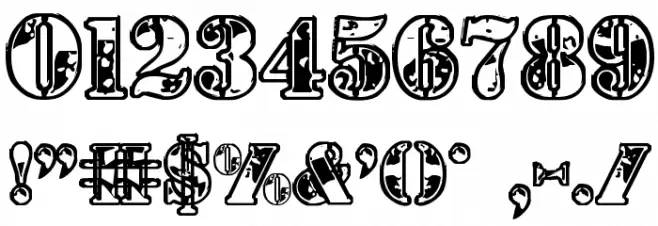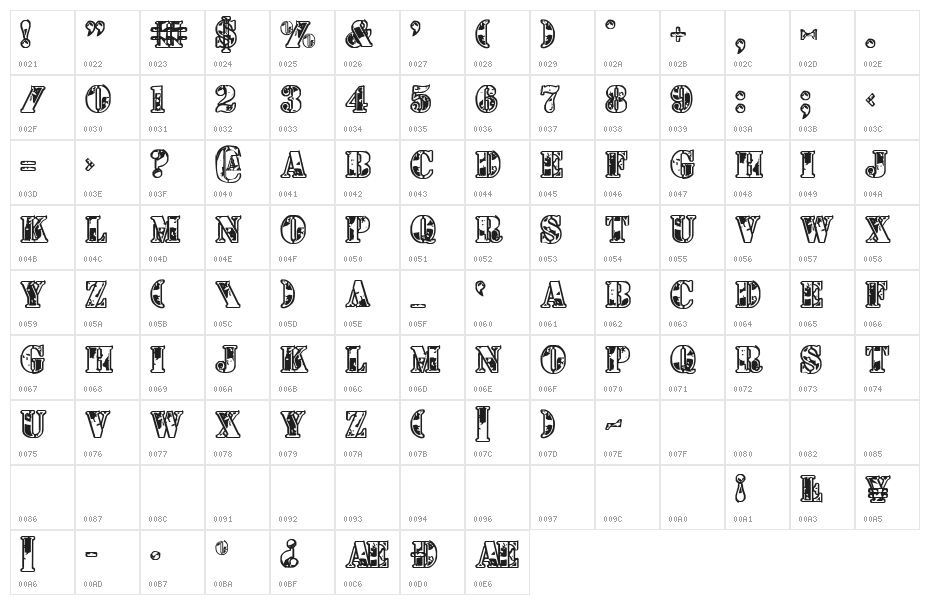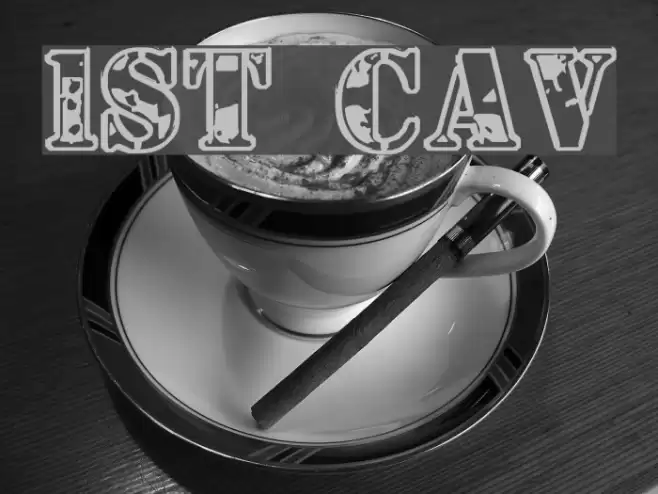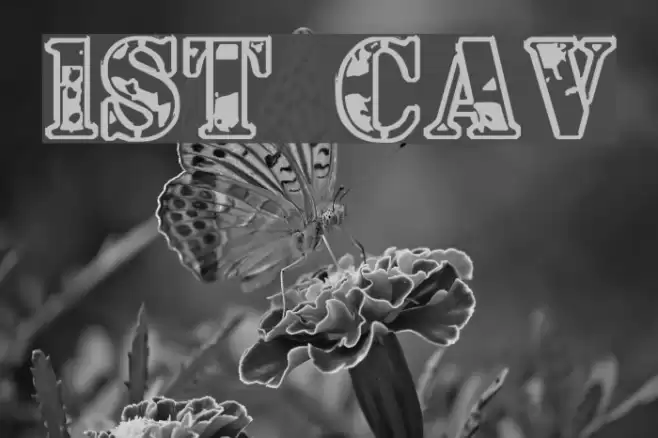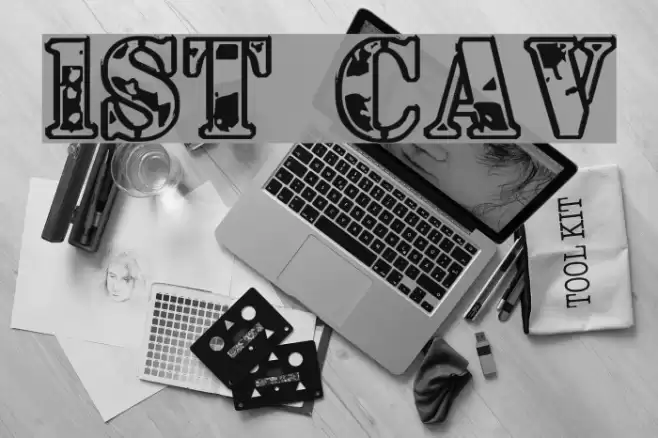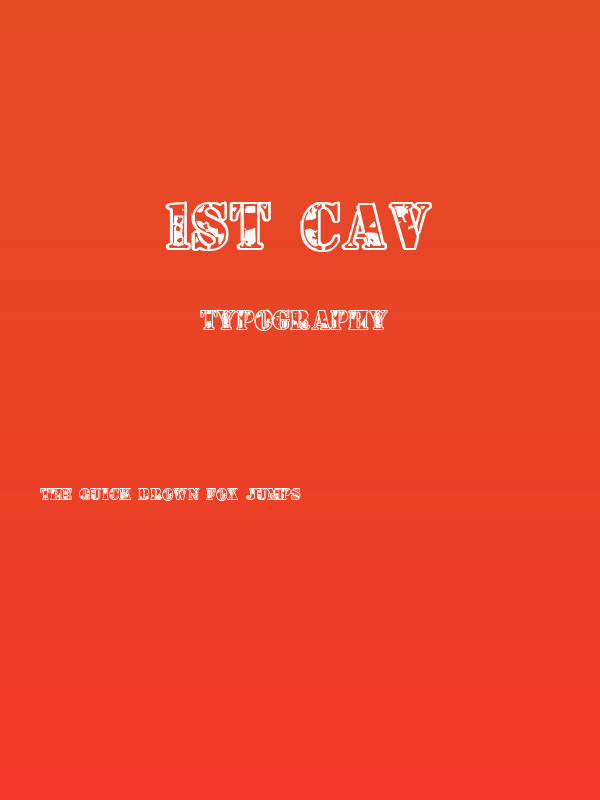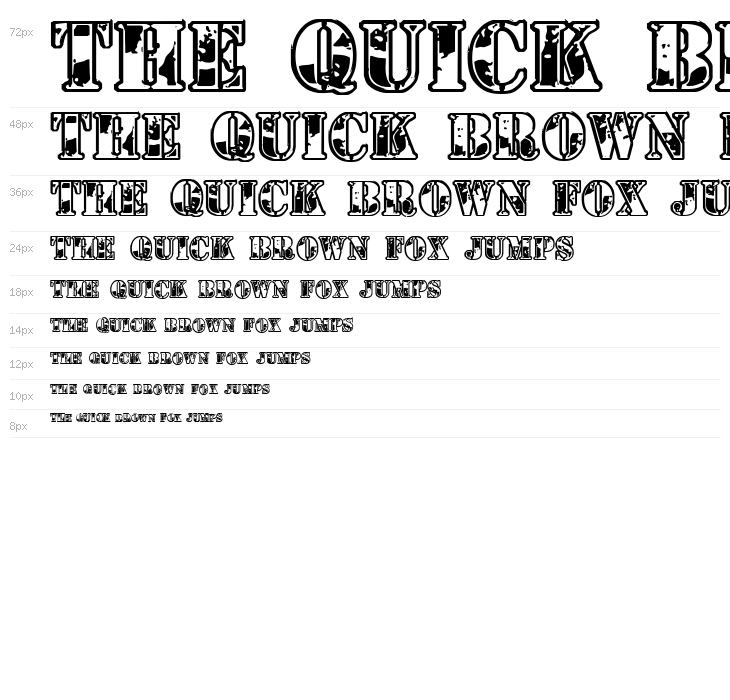
1st Cav Font
1st Cav Description
This font features a bold, decorative style with a distressed, grunge texture that gives it a rugged and vintage appearance. The characters are outlined with a thick border, and the interior is filled with a pattern that resembles worn or weathered surfaces. The uppercase and lowercase letters maintain a consistent design, while the numbers and special characters follow the same aesthetic, ensuring a cohesive look across all elements. The font's unique style makes it stand out, ideal for projects that require a strong visual impact.
| Proposed Projects | Ideal for posters, album covers, branding for vintage-themed products, or any design needing a bold, eye-catching typeface. |